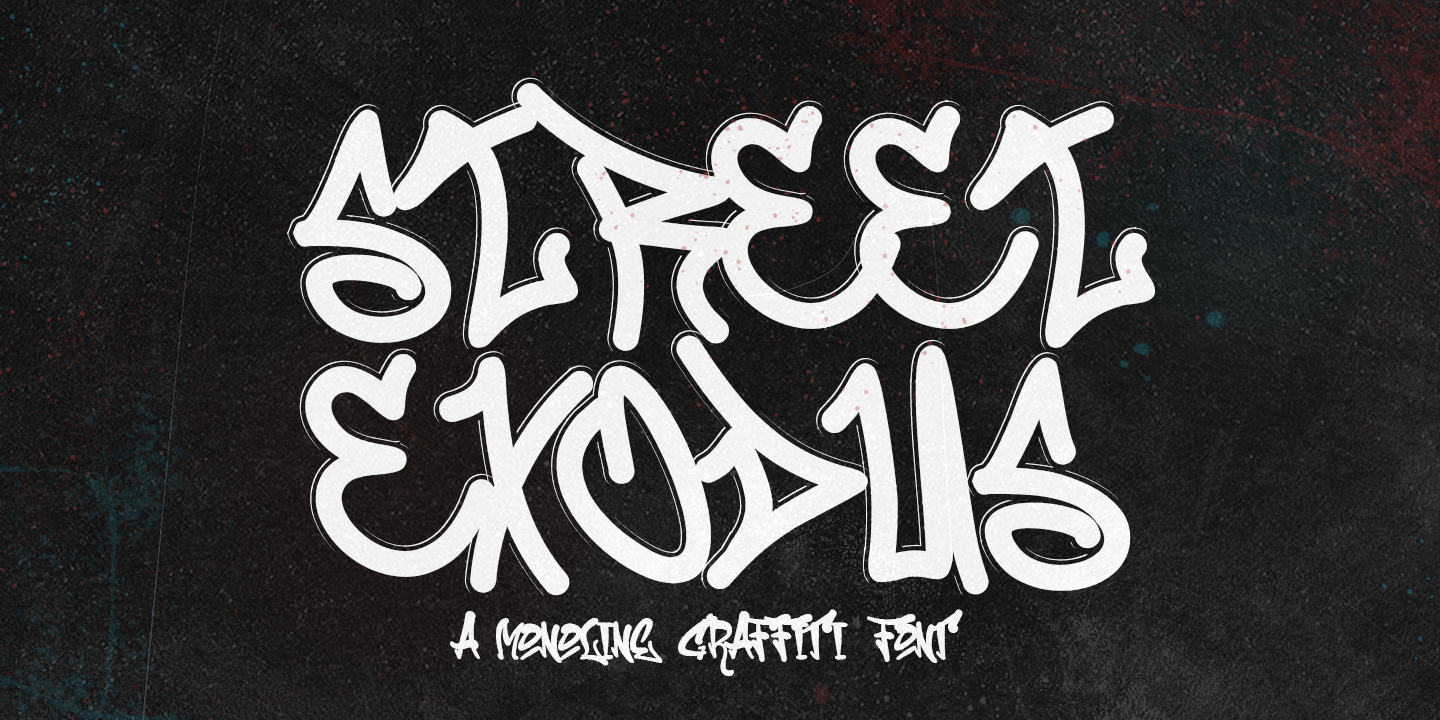
Street Of Exodus Font is perfect for urban dystopian novels, post-apocalyptic movie titles, street art projects, underground music albums, rebellion-themed campaigns, survival gaming graphics, gritty documentary materials, and alternative lifestyle publications.
What makes Street Of Exodus Font exciting is its raw urban survival energy that captures the desperate resilience of exodus journeys through weathered, street-hardened letterforms. The gritty character design and migration aesthetics create an atmosphere of determined escape and urban struggle that resonates with stories of displacement and the search for freedom.
Street Of Exodus Font family includes regular, bold, distressed, graffiti, and exodus versions, plus urban symbols, street art ornaments, and survival decorative elements that enhance the dystopian typography experience with authentic street culture appeal.
Navigate urban survival with Street Of Exodus Font Free Download, the ultimate choice for projects exploring themes of displacement, resilience, and the human journey toward freedom. This powerful typeface embodies the spirit of urban exodus through letterforms that seem worn by countless migrations and strengthened by the determination to survive against overwhelming odds. The expertly weathered characters feature street-hardened proportions that ensure maximum impact while projecting the kind of desperate hope that drives people to leave everything behind in search of better lives. Urban artists and social documentarians consistently select this font for projects requiring authentic connection to displacement experiences combined with visual power that tells stories of human resilience without romanticizing struggle. Its comprehensive collection of survival elements provides unlimited possibilities for creating memorable narratives that honor the courage of those who risk everything for freedom with dignity and truth. Experience the transformative power of exodus typography that elevates standard urban communications into expressions of human determination, establishing your work as a voice for the displaced in today's world where migration and survival define the human experience.